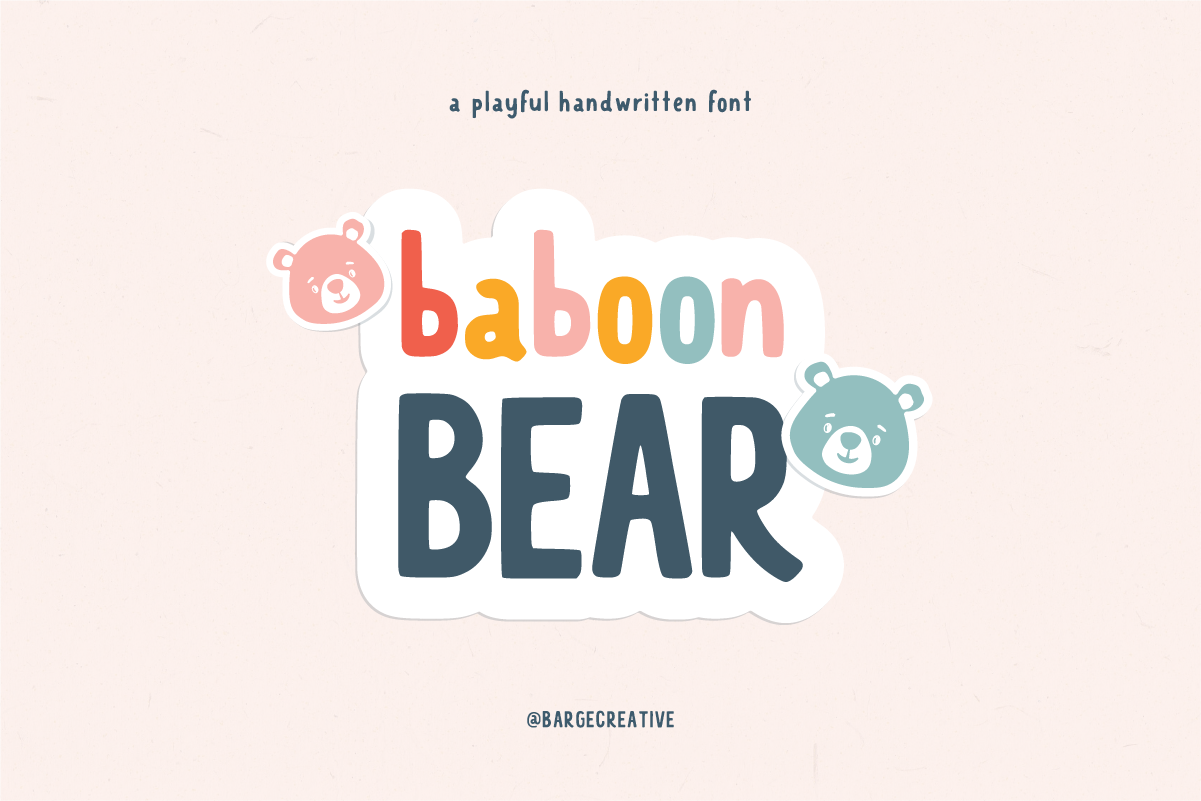
Baboon Bear | a handwritten font
A playful handwritten font created by Barge Creative. The perfect font for children's books, fun logos, social media graphics and more.